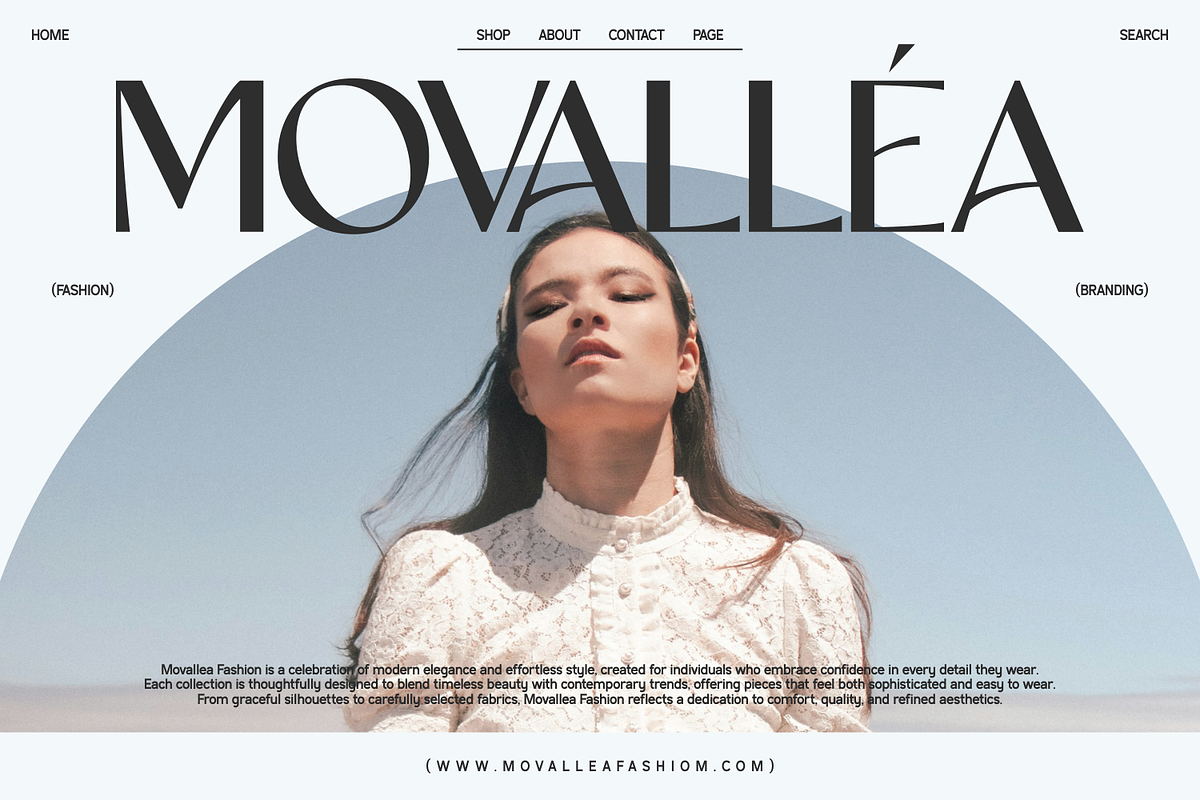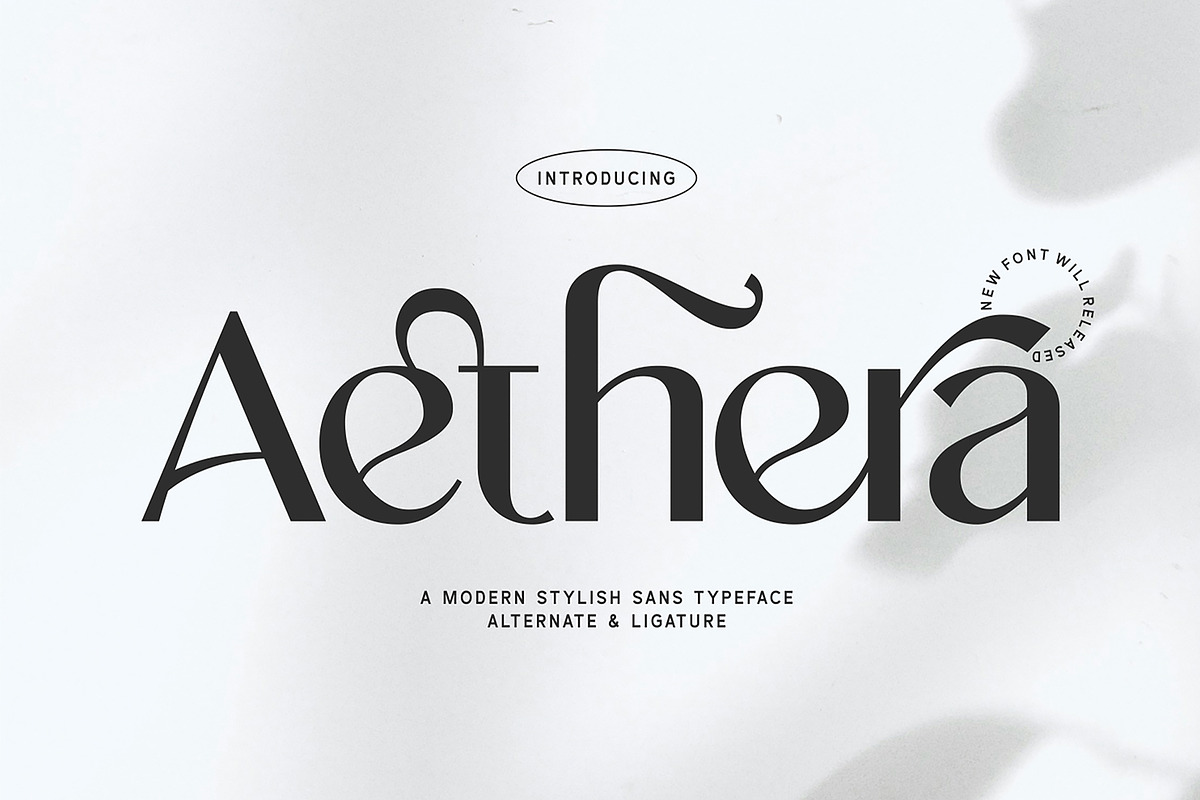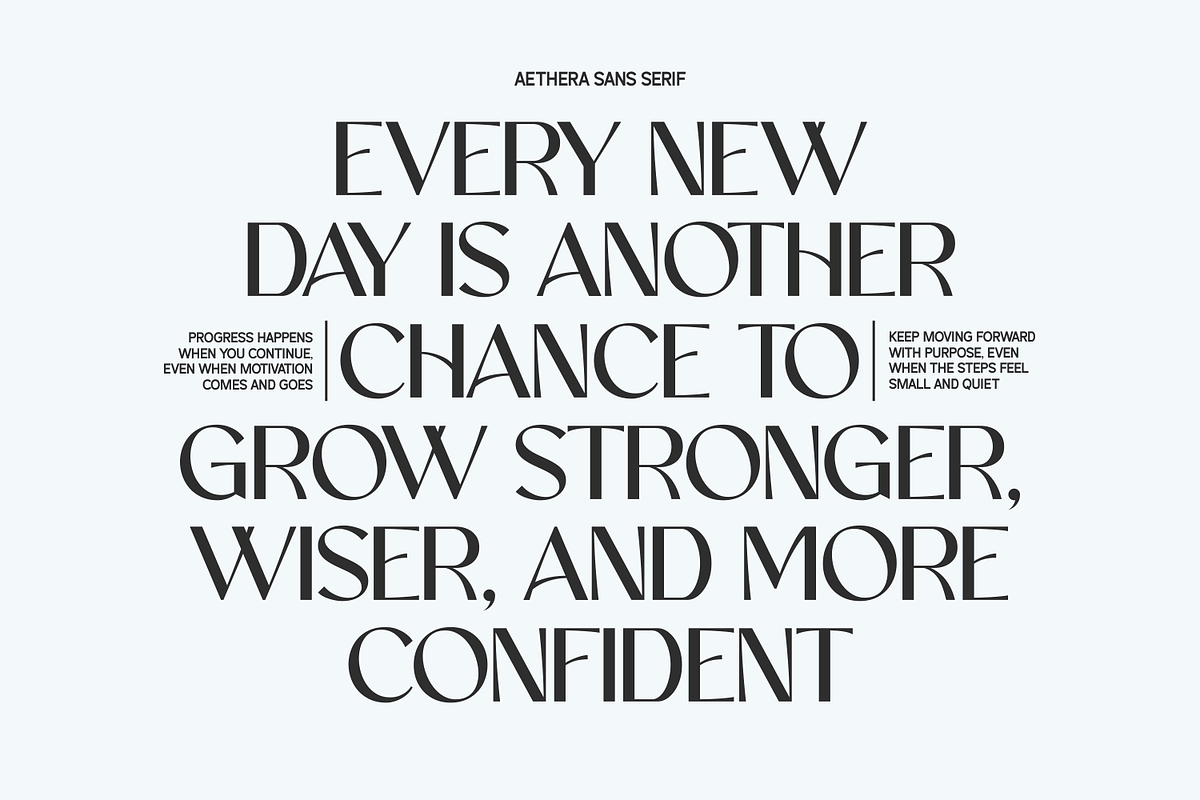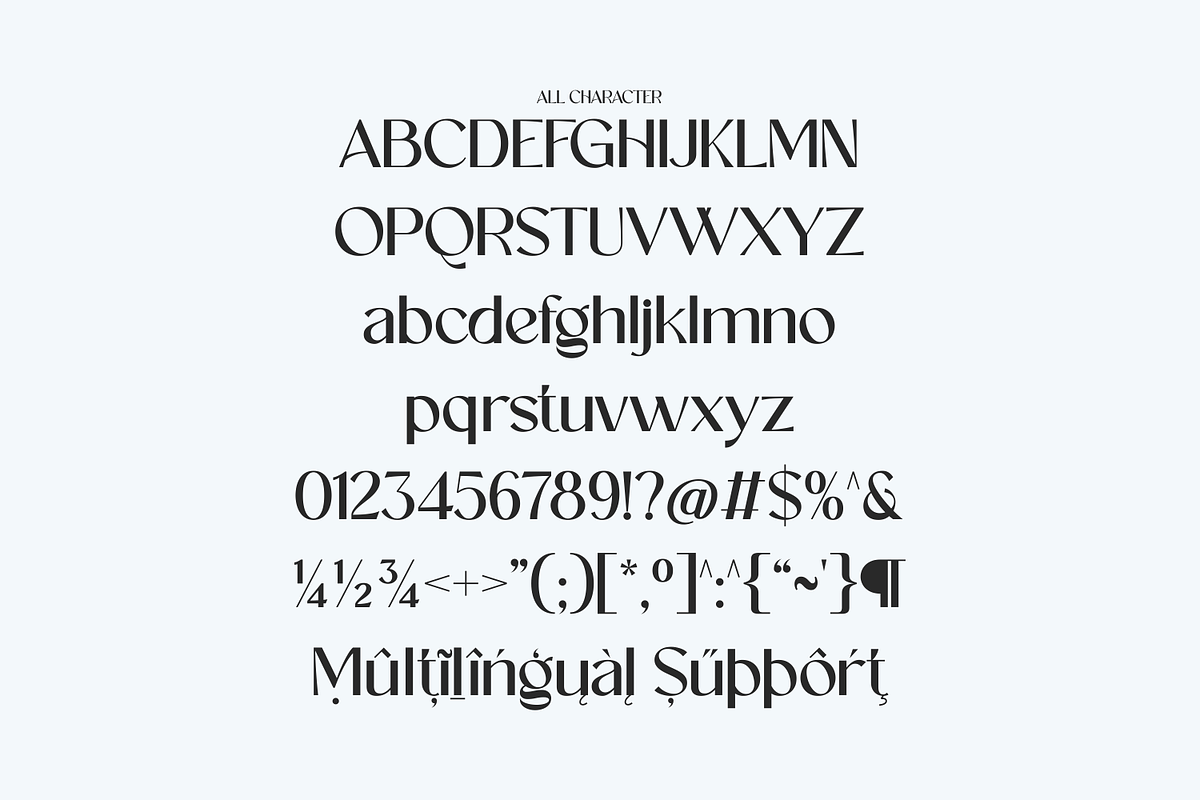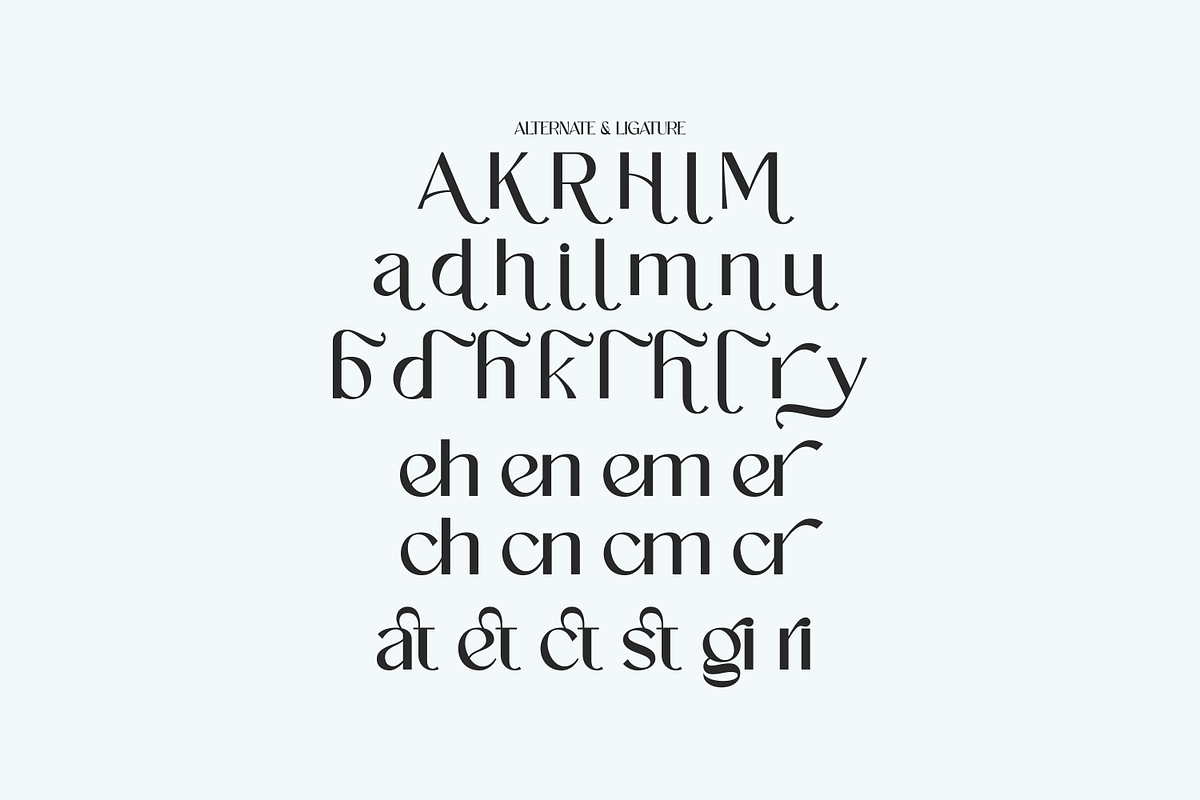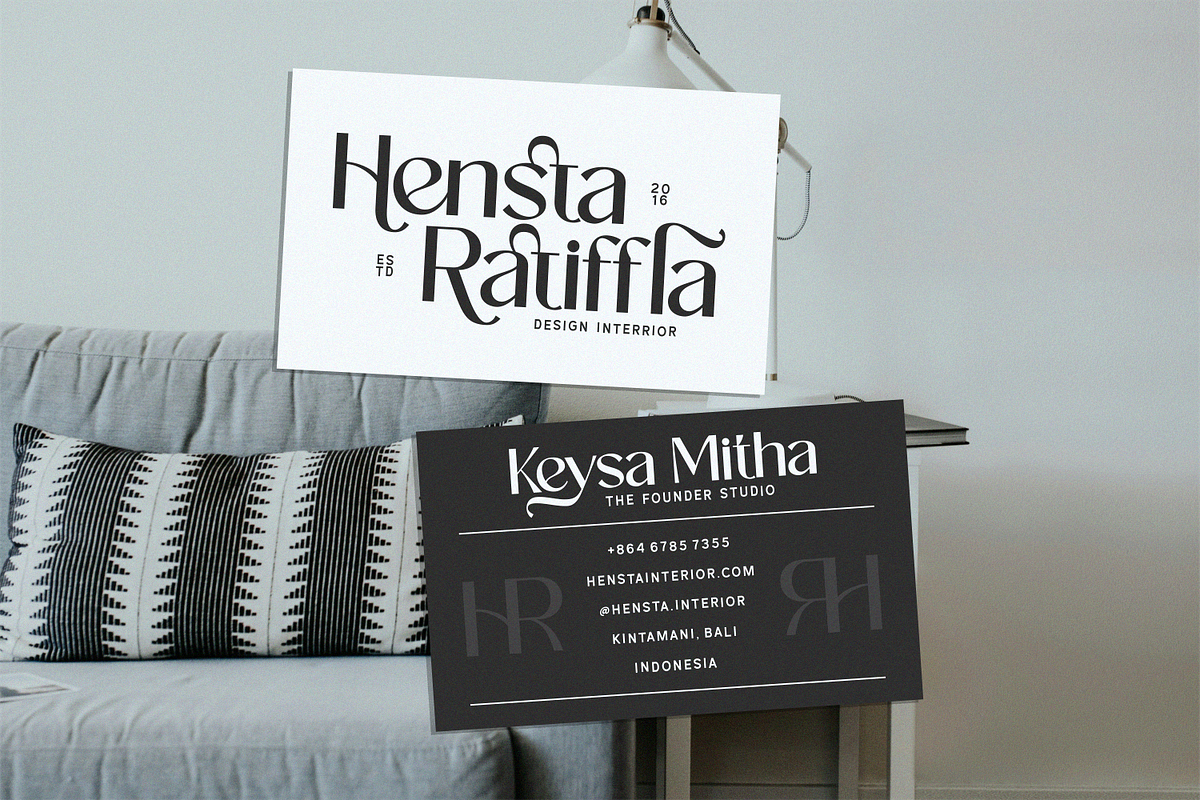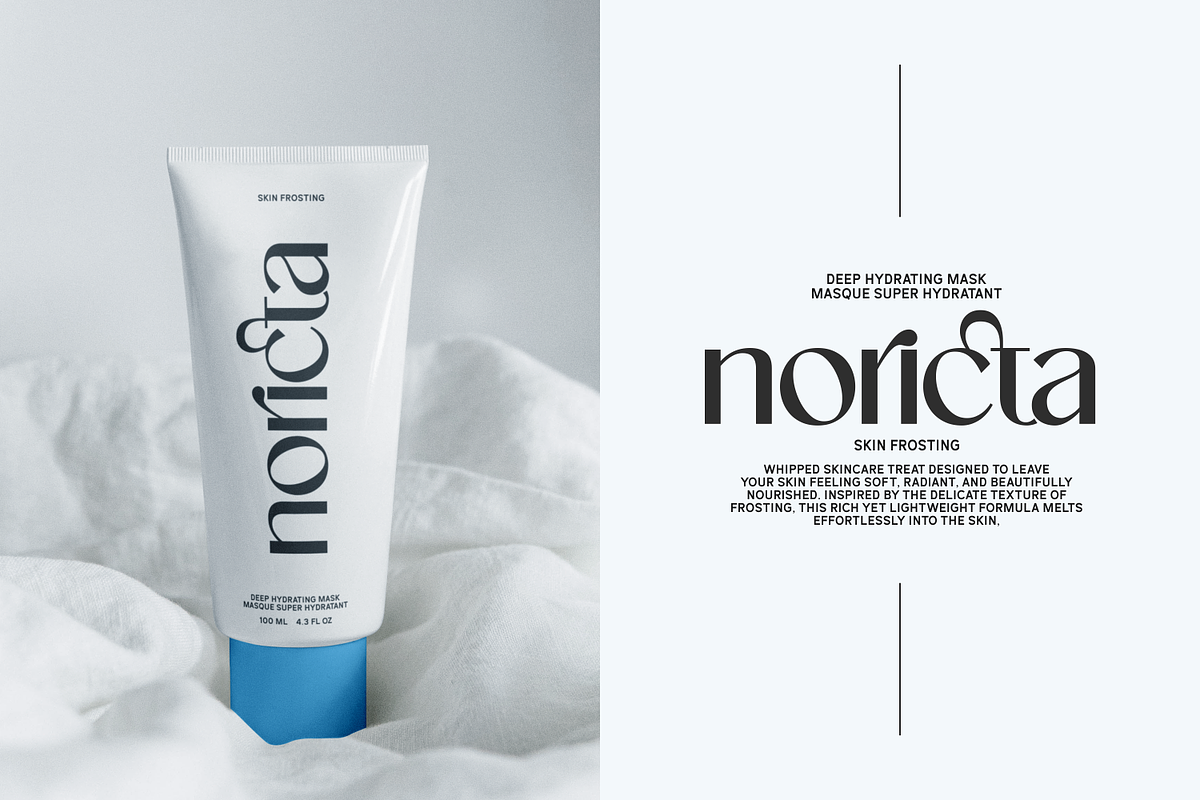
Aethera Modern Stylish Serif Font
Aethera is a modern serif typeface that blends elegance with a distinctive contemporary edge. Designed with refined contrast and graceful curves, it features unique letterforms and expressive alternates that elevate any composition with a sophisticated presence.
What sets Aethera apart is its stylish character details—subtle swashes, fluid terminals, and carefully crafted ligatures that create a seamless and luxurious reading experience. The balance between classic serif structure and modern styling makes it highly versatile across a wide range of design applications.
Perfect for branding, editorial layouts, logos, fashion labels, invitations, and high-end packaging, Aethera delivers a timeless yet trendy aesthetic. Its multilingual support and rich OpenType features allow designers to explore creative typography with ease and flexibility.
\* Uppercase & Lowercase
\* Numerals & Punctuation
\* Stylistic Alternates
\* Ligatures
\* Multilingual Support
Aethera is crafted to bring elegance, personality, and a modern touch to every design.